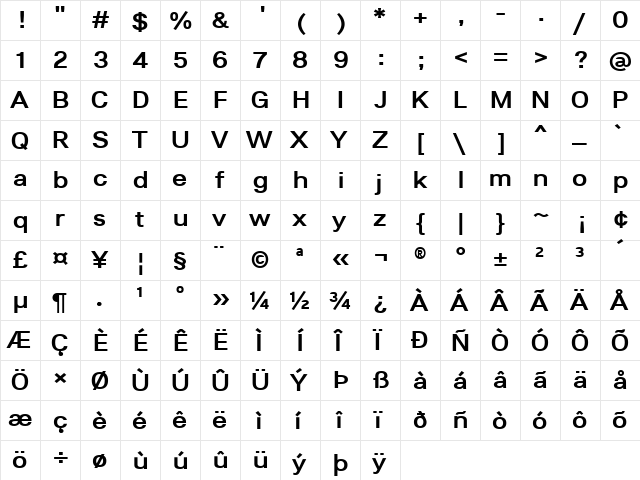
Lunchtype24 Expanded Medium
| Foundry | Steppot |
| Designer | Lunchtype.com |
Design Context for Lunchtype24 Typeface
Lunchtype24 offers clean, dependable letterforms without strong stylistic allegiance, making it a practical choice for designers who need flexibility.
Pro Tip: Use Lunchtype24 in both headline and body roles to test its range before committing to a single application.